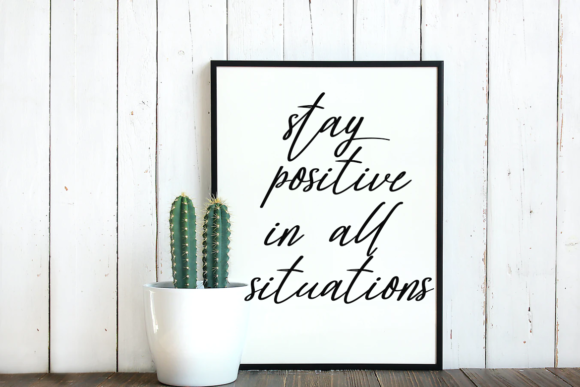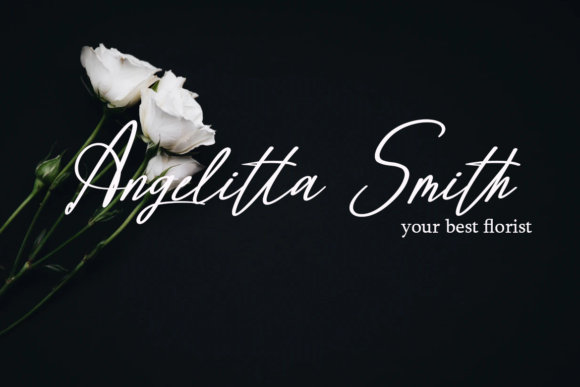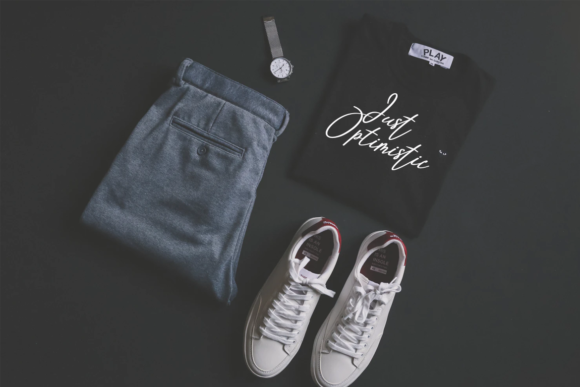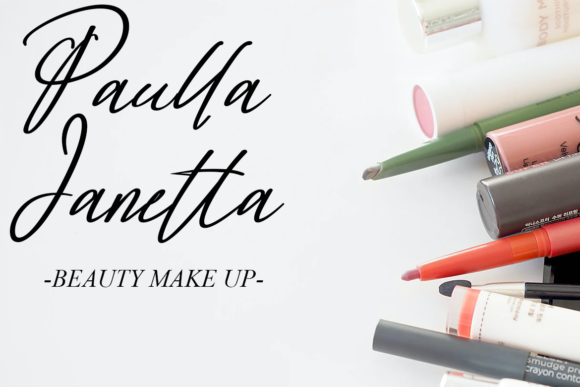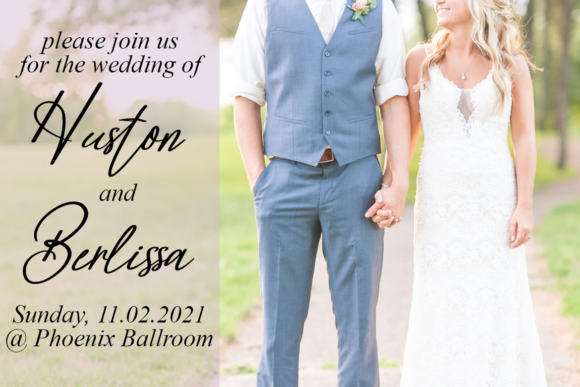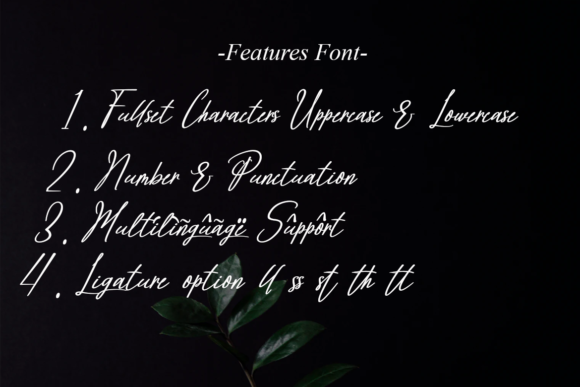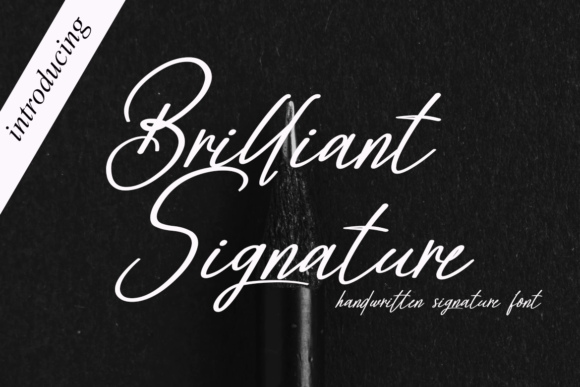
Introducing Brilliant Signature: The Ultimate Handwritten Font for Stunning Designs
Are you tired of using the same old fonts for your designs? Look no further! Brilliant Signature is a game-changing, thin, and beautiful handwritten font that will elevate your creations to the next level. Its genuine and well-rounded letters make this font a work of art, perfect for designers and crafters who want to add a touch of elegance and sophistication to their work.
The Beauty of Brilliant Signature
Brilliant Signature is a carefully crafted font that boasts a unique and adaptable style, making it perfect for a wide range of design applications. Whether you’re creating wedding invitations, branding materials, or social media graphics, this font is sure to impress. Its thin and delicate lines give it a romantic and whimsical feel, while its well-rounded letters ensure that it remains clear and legible.
What Makes Brilliant Signature So Special?
- Unique and Handwritten Style: Brilliant Signature is a truly one-of-a-kind font that is sure to make your designs stand out from the crowd. Its handwritten style gives it a personal and human touch that is hard to replicate with generic fonts.
- Adaptable and Versatile: This font is incredibly versatile and can be used for a wide range of design applications, from formal events to casual social media graphics.
- Easy to Read and Legible: Despite its delicate lines, Brilliant Signature is remarkably legible, making it perfect for designs that require a clear and easy-to-read font.
- Perfect for Branding and Marketing: With its unique and elegant style, Brilliant Signature is an excellent choice for branding and marketing materials, such as logos, business cards, and brochures.
How to Use Brilliant Signature in Your Designs
Using Brilliant Signature in your designs is incredibly easy. Here are a few tips to get you started:
- Pair it with Bold Fonts: Brilliant Signature looks stunning when paired with bold and contrasting fonts. Try pairing it with a bold sans-serif font for a striking contrast.
- Use it for Headings and Titles: Brilliant Signature is perfect for headings and titles, where its unique style can really shine.
- Experiment with Colors and Textures: Don’t be afraid to experiment with different colors and textures to add depth and interest to your designs.
Why Designers and Crafters Love Brilliant Signature
Brilliant Signature has quickly become a favorite among designers and crafters, and it’s easy to see why. Here are just a few reasons why:
- Easy to Use: Brilliant Signature is incredibly easy to use, even for those who are new to design.
- High-Quality Design: This font is meticulously designed to ensure that it looks stunning in any design application.
- Unique and Creative: Brilliant Signature offers a unique and creative way to express yourself through your designs.
In conclusion, Brilliant Signature is a must-have font for any designer or crafter looking to elevate their designs to the next level. Its unique and adaptable style, combined with its ease of use and high-quality design, make it an excellent choice for a wide range of design applications. So why wait? Fall in love with Brilliant Signature and start creating ravishing designs today!